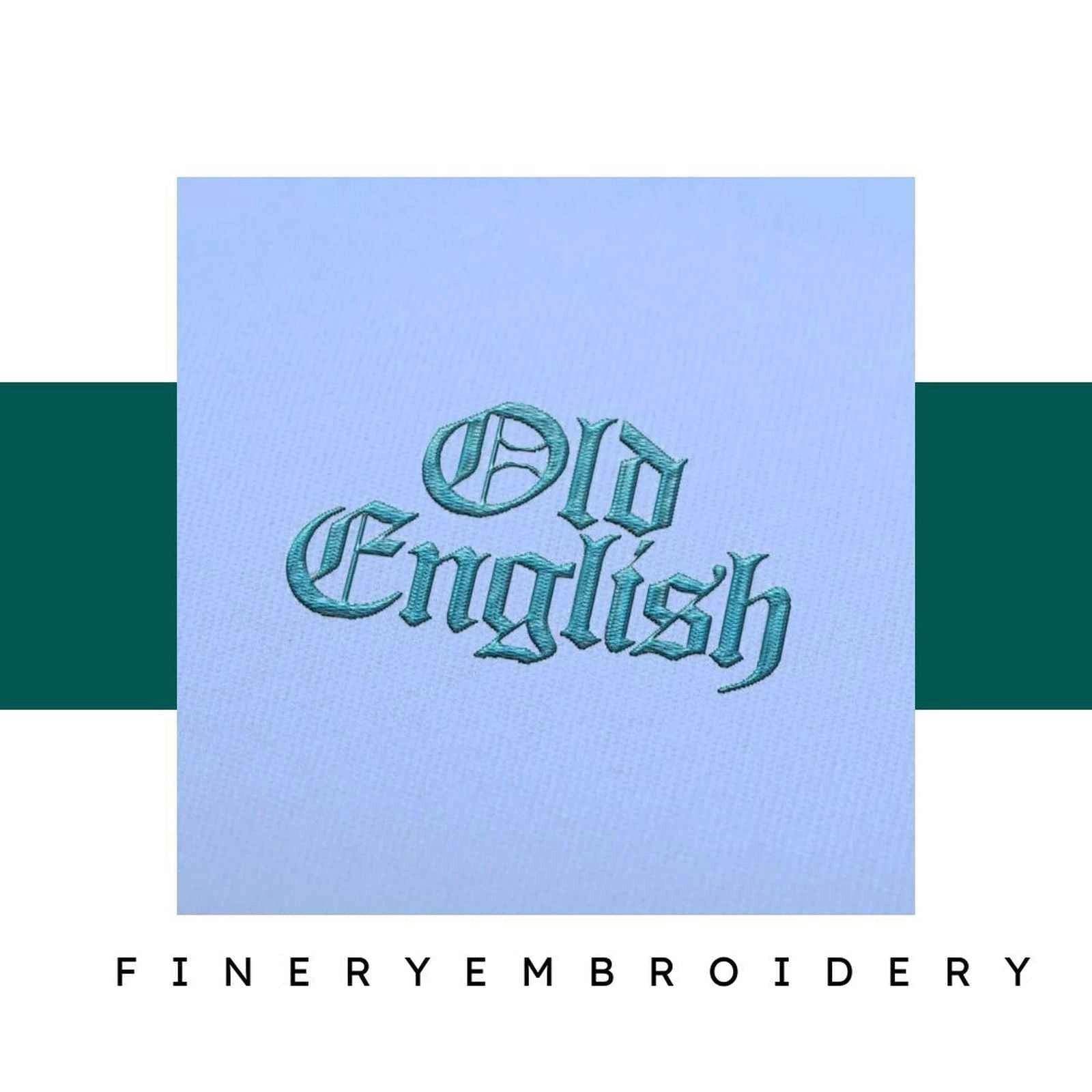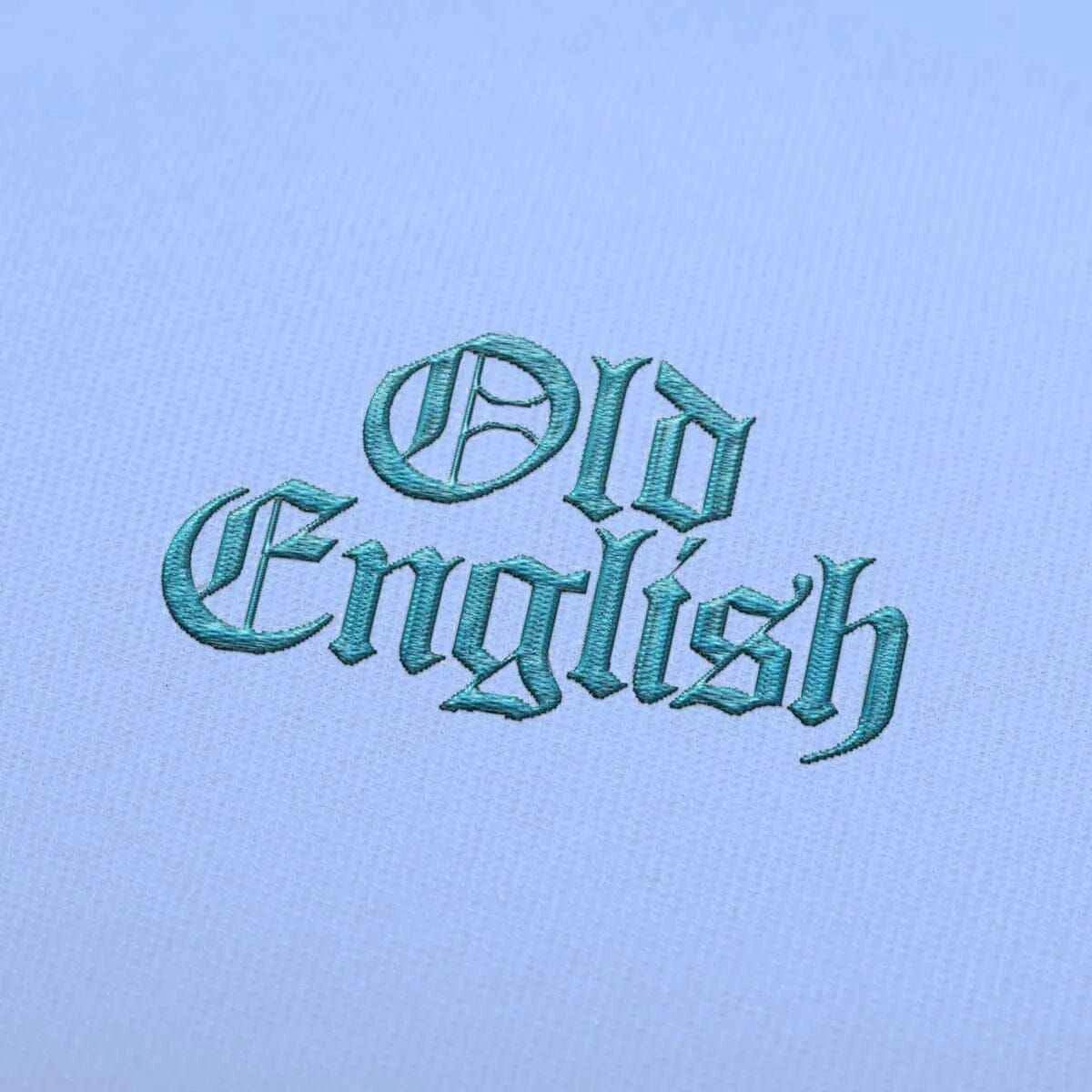
Old English Embroidery alphabet Font Set
Transform your embroidery projects with the timeless elegance of the Old English Embroidery Alphabet Font Set, where each letter tells a story of sophistication and artistry.
Introducing the Old English Embroidery Alphabet Font Set, a meticulously crafted collection designed to infuse your embroidery creations with an air of classic elegance. This set features both uppercase and lowercase letters, numbers, and punctuation marks, all in a stunning Old English style that will elevate your projects to new heights.
Why You'll Love This Design
The Old English style is renowned for its intricate and beautiful lettering that evokes a sense of history and artistry. Each character in this font set is designed to add a remarkable touch of elegance, ensuring that your embroidery stands out whether it’s for personal use or special occasions.
Creative Applications
This versatile font set is perfect for a wide range of creative applications. Whether you're personalizing a bridal gift, adding a unique flair to home décor, or embellishing event decorations, the Old English Alphabet Font Set provides endless possibilities for your embroidery endeavors.
- Perfect for personalized gifts and unique projects that demand a touch of elegance.
- Each character crafted to enhance your embroidery artistry and creativity.